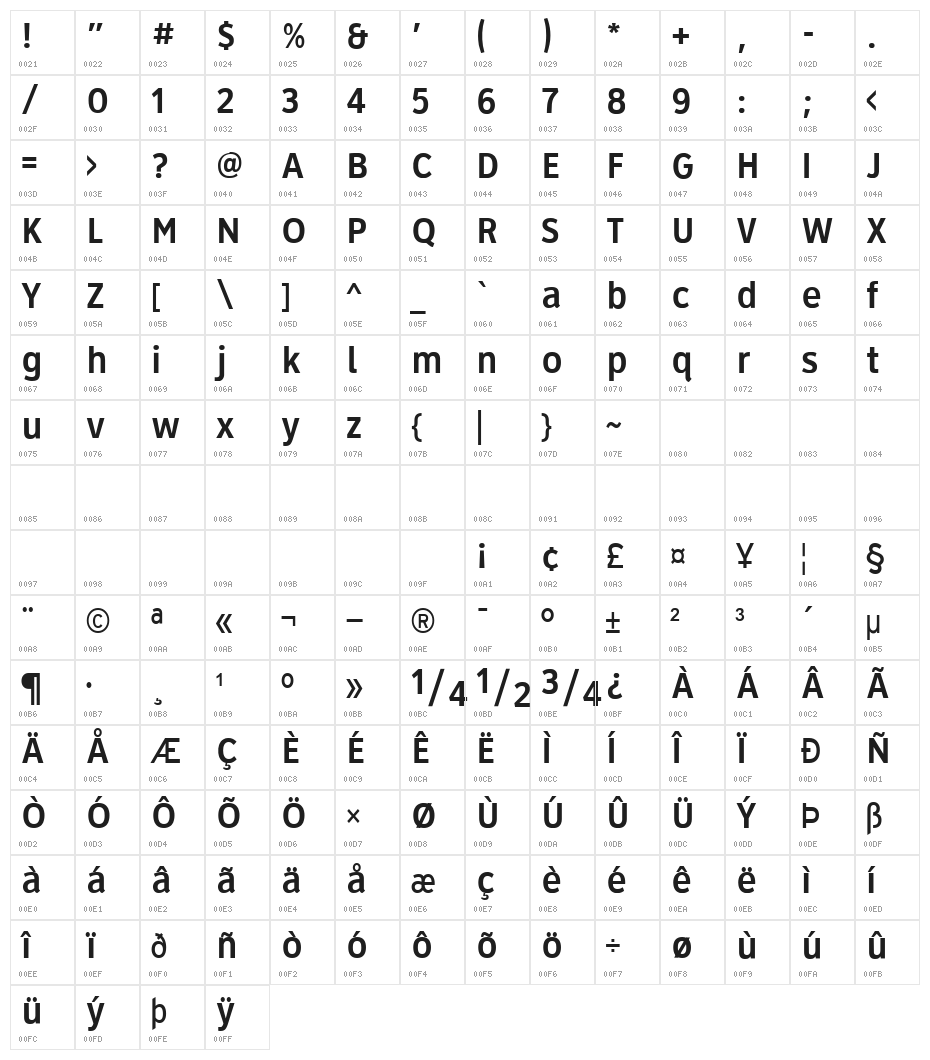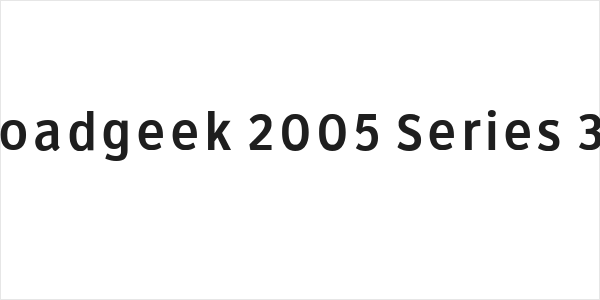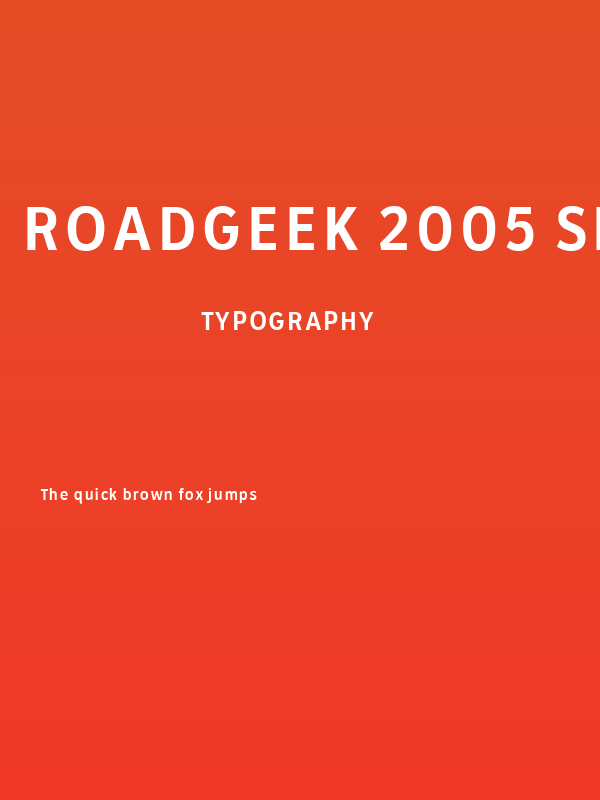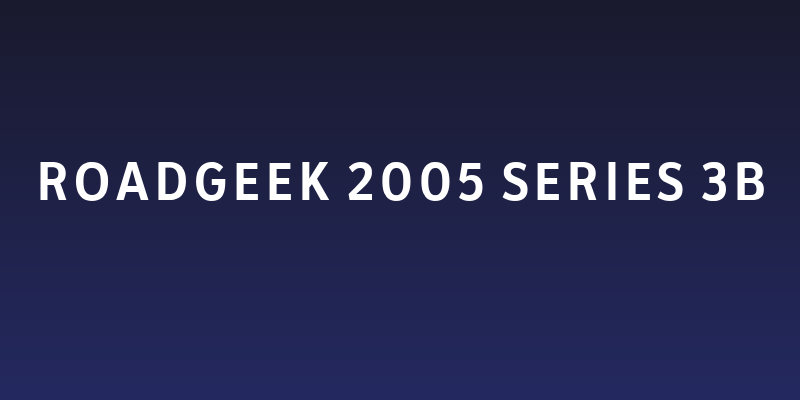
Roadgeek 2005 Series 3B Font
Roadgeek 2005 Series 3B Description
This font features a clean and modern sans-serif design, characterized by its uniform stroke width and geometric shapes. The uppercase letters are bold and straightforward, providing excellent legibility. The lowercase letters maintain a consistent style, with rounded edges that soften the overall appearance. The numerals are clear and distinct, making them easily readable. Special characters are well-integrated, offering a comprehensive set for various uses. The font's simplicity and clarity make it suitable for a wide range of applications, from signage to digital interfaces.
| Use Case | Headlines, Signage, Digital interfaces |
| Proposed Projects | Ideal for road signage, digital interfaces, branding, and corporate materials. |